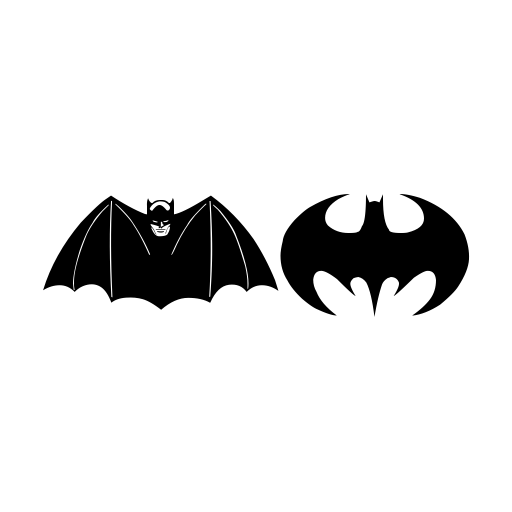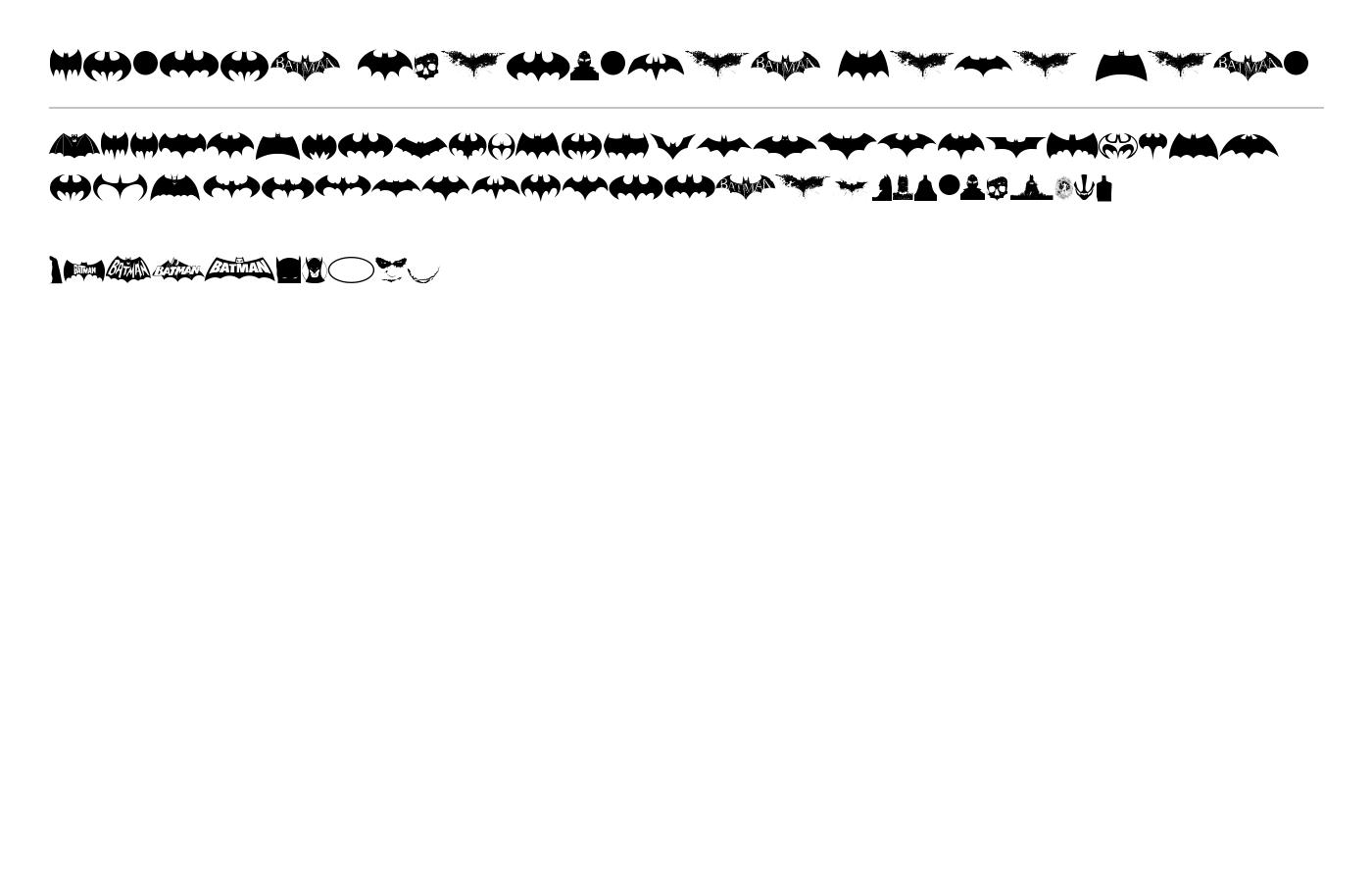
Batman Evolution Logo Font is a decorative, thematic symbol font that features various iconic bat shapes and Batman logos. It is visually bold and graphic, designed to evoke a dark, mysterious, and heroic feel fitting for comic, entertainment, and superhero branding contexts. This font works best for logos, titles, and display purposes where a strong visual connection to the Batman character is desired.
Batman Evolution Logo Font
About Batman Evolution Logo Font